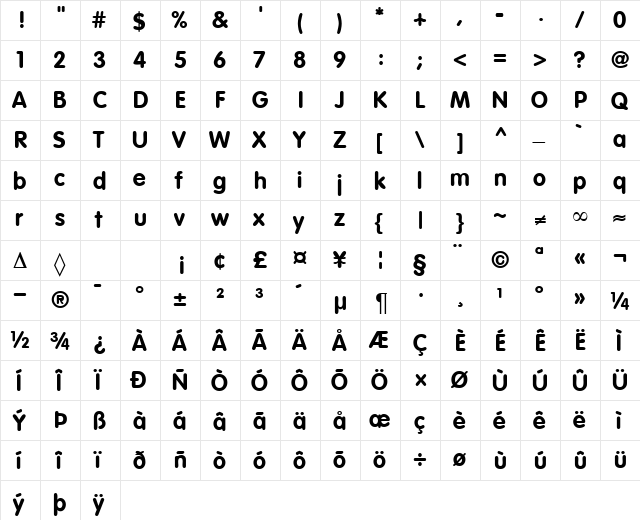
Vag Bold
Design Context for Vag Typeface
Vag offers clean, dependable letterforms without strong stylistic allegiance, making it a practical choice for designers who need flexibility. The heavy weight commands attention and anchors typographic hierarchies.